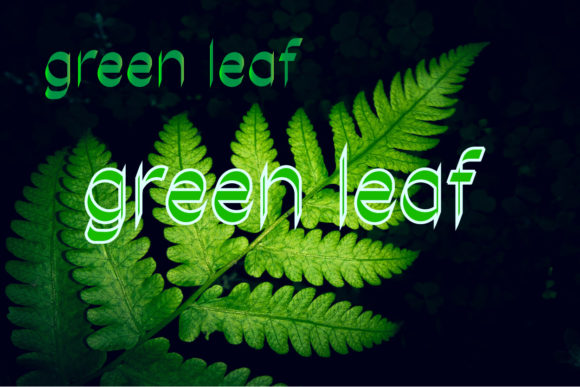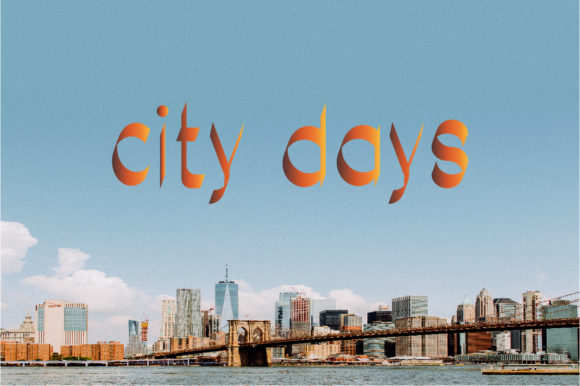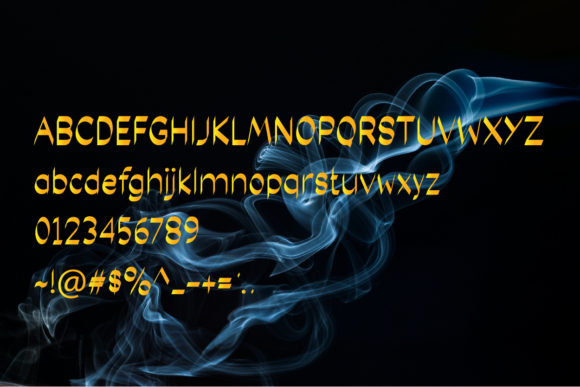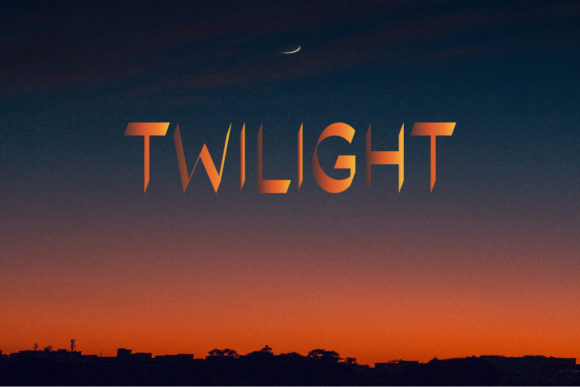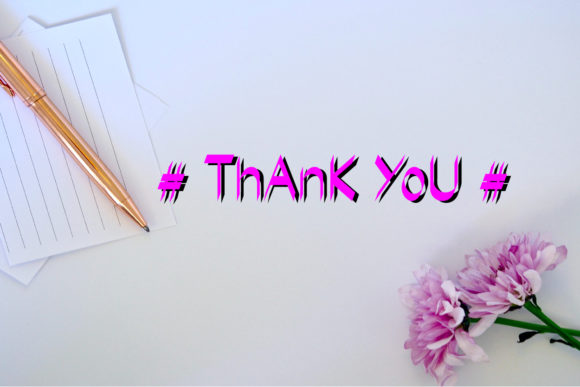
Introducing Cloud Font: The Modern Sans Serif for Creative Minds
Are you a designer, crafter, or creative looking for a unique and modern font to elevate your projects? Look no further than Cloud Font, a stunning sans serif font that’s versatile, elegant, and sure to inspire. In this article, we’ll dive into the world of Cloud Font, exploring its features, benefits, and uses, and why it’s a must-have for any creative arsenal.
What is Cloud Font?
Cloud Font is a sleek and contemporary sans serif font that’s designed to effortlessly complement a wide range of designs. Its clean lines, subtle curves, and balanced proportions make it an excellent choice for various applications, from digital projects to print materials. Whether you’re working on a logo, branding, packaging, or signage, Cloud Font is the perfect companion to help you achieve your creative vision.
Key Features of Cloud Font
- Unique and Modern Design: Cloud Font boasts a distinctive and modern aesthetic that’s sure to capture attention. Its sans serif design ensures a clean and minimalist look that’s perfect for contemporary designs.
- Versatile and Adaptable: Cloud Font is incredibly versatile and can be used in various contexts, from headings and titles to body text and captions.
- Easy to Read: Cloud Font’s clear and legible design makes it easy to read, even at small font sizes.
- Highly Customizable: Cloud Font can be easily customized to fit your project’s specific needs, allowing you to experiment with different styles, colors, and effects.
Benefits of Using Cloud Font
So, why choose Cloud Font for your next project? Here are just a few benefits you can expect:
- Enhance Your Brand’s Visual Identity: Cloud Font’s modern and sleek design can help elevate your brand’s visual identity and create a lasting impression on your audience.
- Streamline Your Design Process: With Cloud Font, you can quickly and easily create stunning designs that require minimal effort and expertise.
- Stand Out from the Crowd: Cloud Font’s unique design ensures that your projects will stand out from the competition, grabbing attention and driving engagement.
Who Can Benefit from Cloud Font?
Cloud Font is an excellent choice for a wide range of creatives, including:
- Graphic Designers: Cloud Font is perfect for graphic designers looking to create stunning visual identities, logos, and branding materials.
- Crafters and Makers: Cloud Font is ideal for crafters and makers who want to add a professional touch to their handmade products, packaging, and marketing materials.
- Digital Artists and Illustrators: Cloud Font can be used to add text and captions to digital art, illustrations, and comics.
- Experiment and Play: Experiment with different font sizes, styles, and effects to find the perfect look for your project.
- Pair with Other Fonts: Try pairing Cloud Font with other fonts to create unique and interesting combinations.